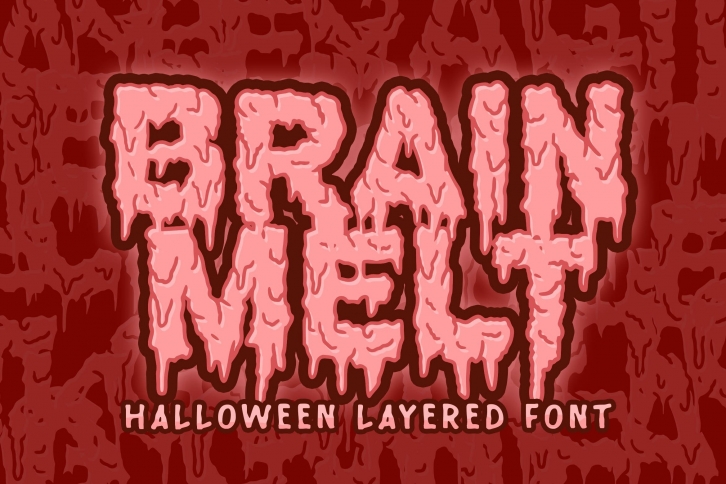
Brain Melt Halloween Layered is a beautiful font that was designed by Fontherapy. It's a great choice for designers and creatives who need such a font. It was released on August 9, 2021 and the file size is 18.60 MB. Brain Melt Halloween Layered may give a more youthful, expressive and casual look to your project. It is a very beautiful, refined, elegant, and high-quality font.